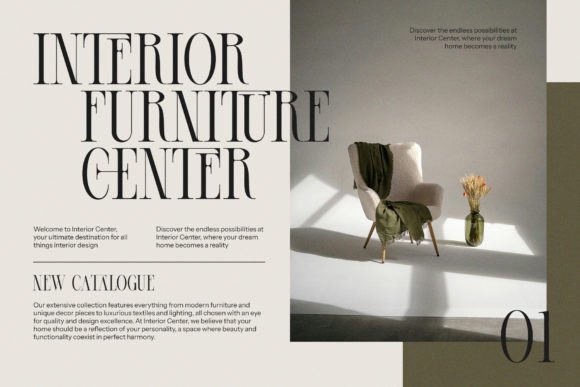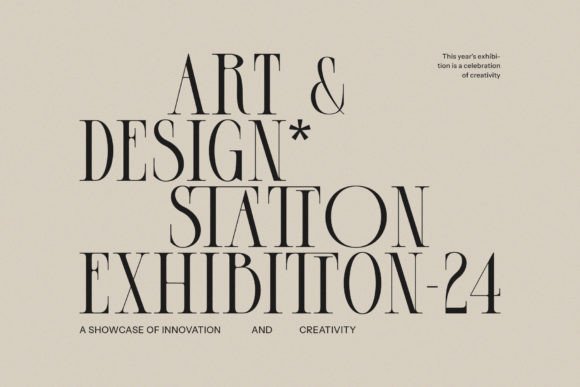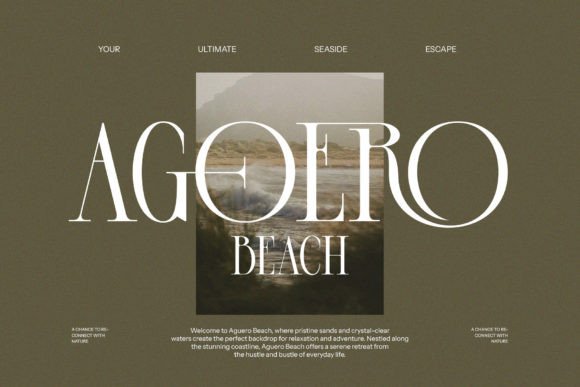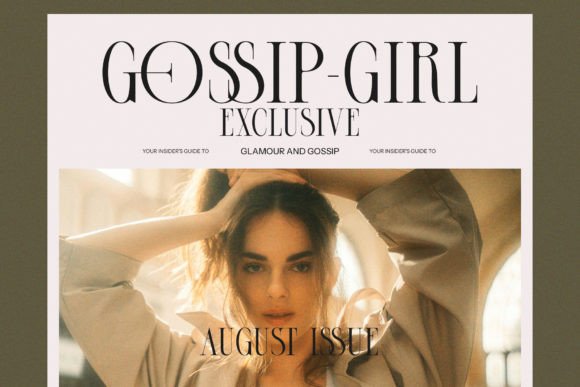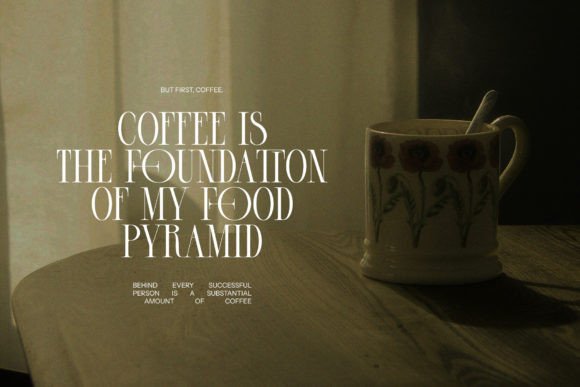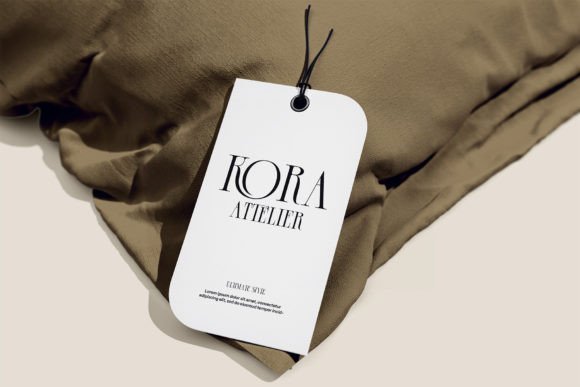
I still remember the countless hours I spent scrolling through font libraries, searching for the perfect typeface for a client’s branding project. The brief was simple: elegant, modern, and minimalist. Sounds easy, right? But, as designers know, finding that one font that ticks all the boxes can be a daunting task. That’s when I stumbled upon **CEKOUNT**, a modern serif typeface that has since become a staple in my design toolkit.
First Impressions: A Love Affair with CEKOUNT
As soon as I laid eyes on CEKOUNT, I knew I had found something special. Inspired by the famous minimalist logo, this typeface exudes elegance and sophistication. Here are a few things that I love about CEKOUNT:
- ✨ Clean lines and curves: CEKOUNT boasts a sleek, modern design that’s perfect for a wide range of applications, from branding and advertising to invitations and crafting.
- ✅ Versatile: Whether you’re designing a template, brochure, or video, CEKOUNT adapts seamlessly to different mediums and styles.
- 💡 OpenType features: CEKOUNT comes with a range of OpenType features, including glyphs and stylistic alternates, which allow for endless creative possibilities.
A Few Quirks to Keep in Mind
While CEKOUNT is an exceptional typeface, it’s not without its limitations. Here are a few things to keep in mind:
- 🤔 Limited character set: CEKOUNT might not have the most extensive character set, so make sure to check the font’s capabilities before committing to a project.
- ⚠️ Not suitable for body text: Due to its elegant, high-contrast design, CEKOUNT is best suited for headlines, titles, and short paragraphs. For body text, consider pairing it with a more readable font.
The Story Behind CEKOUNT: Designer Inspiration
CEKOUNT was inspired by the famous minimalist logo, which has become a staple in modern design. The font’s creator aimed to capture the essence of simplicity and elegance, resulting in a typeface that’s both modern and timeless.
| What is CEKOUNT? | CEKOUNT is a modern serif typeface inspired by the famous minimalist logo. |
| Is CEKOUNT suitable for body text? | No, CEKOUNT is best suited for headlines, titles, and short paragraphs due to its elegant, high-contrast design. |
| Does CEKOUNT come with OpenType features? | Yes, CEKOUNT comes with a range of OpenType features, including glyphs and stylistic alternates. |